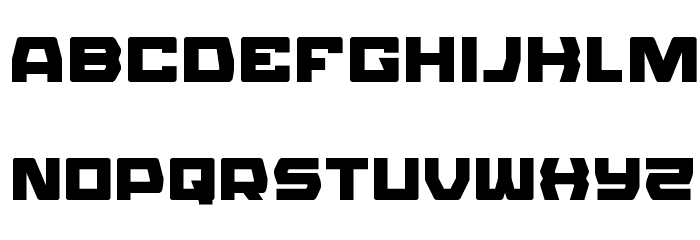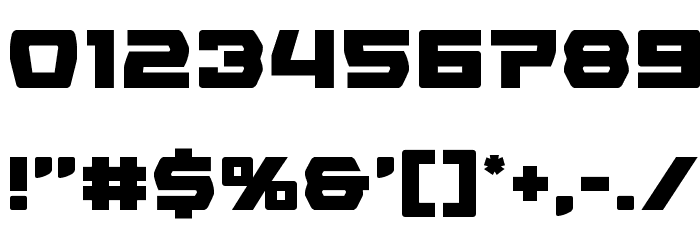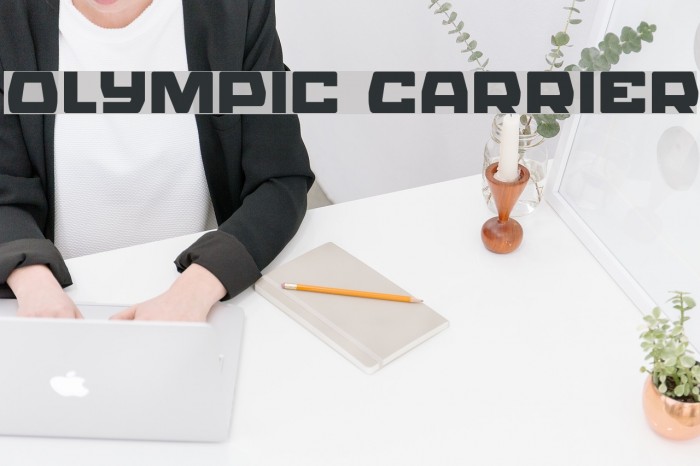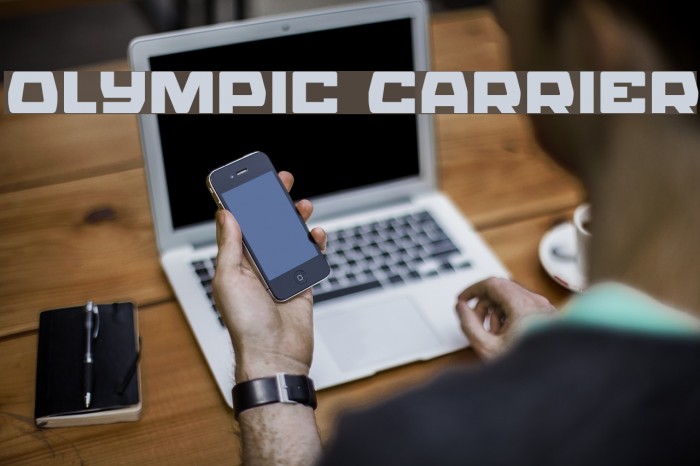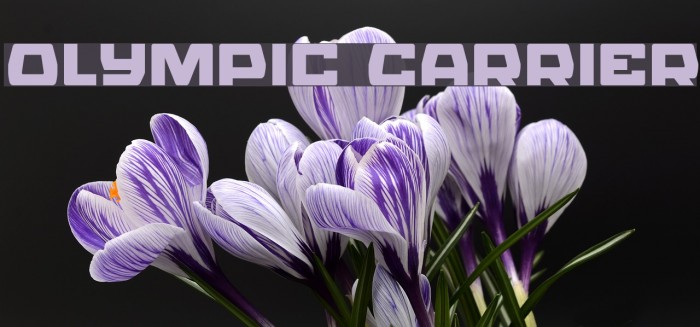
Olympic Carrier Font
This font features a bold, geometric design with a strong presence. The characters are blocky and angular, giving it a futuristic and industrial feel. The uppercase letters are uniform in height, while the lowercase letters maintain a consistent style, ensuring readability. The numbers and special characters are designed to match the boldness of the alphabet, making them stand out. The overall appearance is modern and impactful, suitable for projects that require a strong visual statement.
- Proposed Projects: Ideal for branding, posters, video game graphics, and any project needing a strong, modern aesthetic.